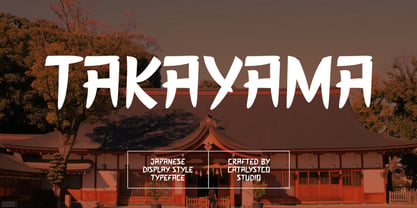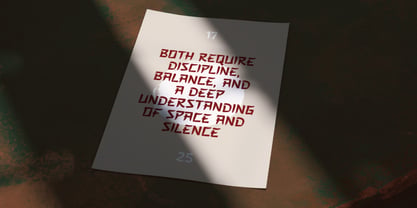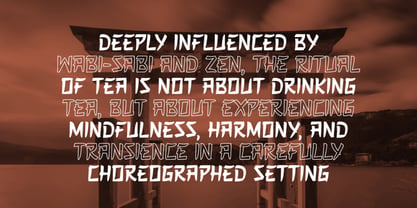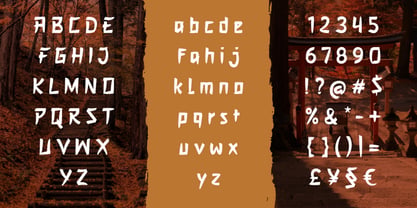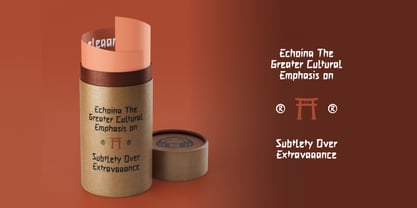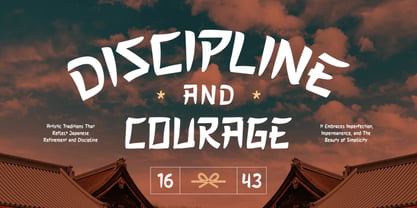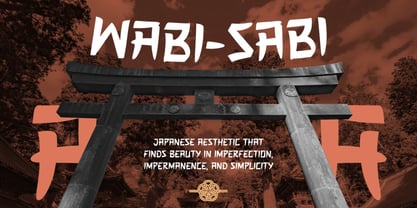
Takayama
von Catalystco Std
Takayama is a bold and stylized display font inspired by traditional Japanese brush strokes and architectural forms. Crafted with cultural depth and modern versatility, this typeface brings an authentic East Asian visual identity to your work. It features a full set of uppercase and lowercase characters, numerals, punctuation, and symbols. Takayama is a bold and stylized display font inspired by traditional Japanese brush strokes and architectural forms. Crafted with cultural depth and modern versatility, this typeface brings an authentic East Asian visual identity to your work. It features a full set of uppercase and lowercase characters, numerals, punctuation, and symbols.